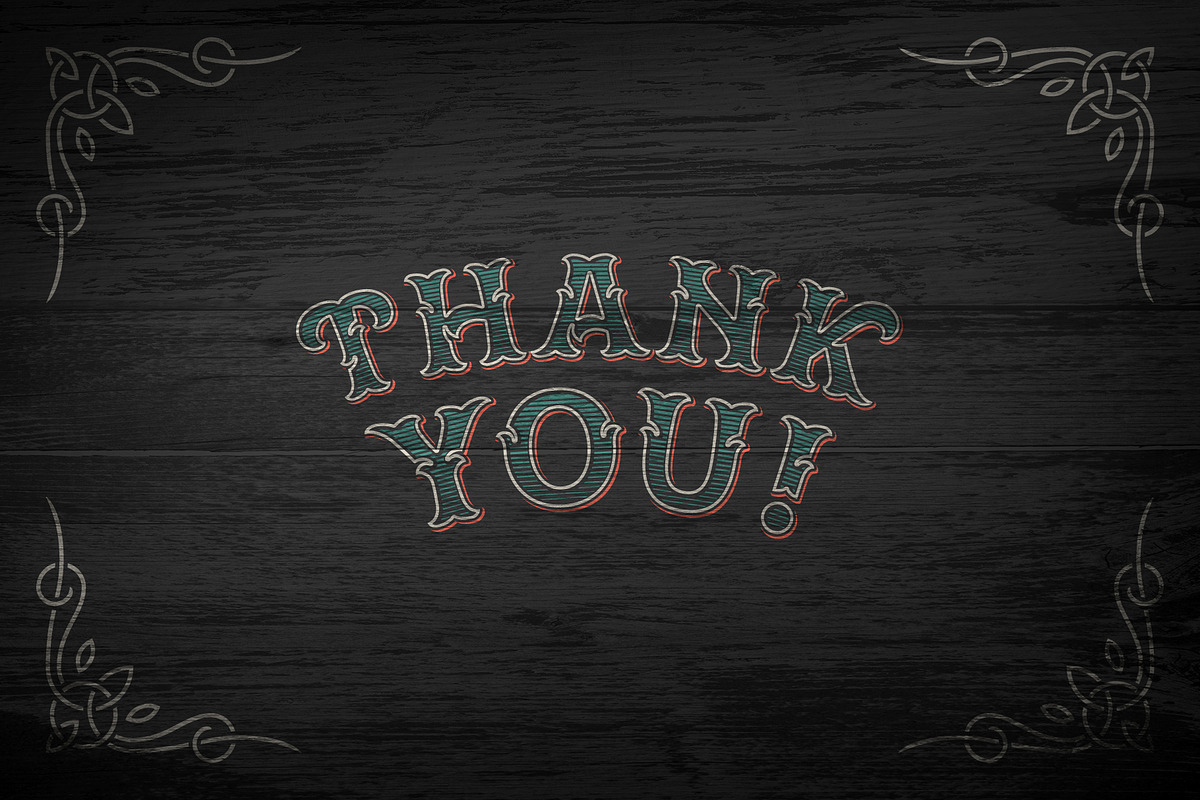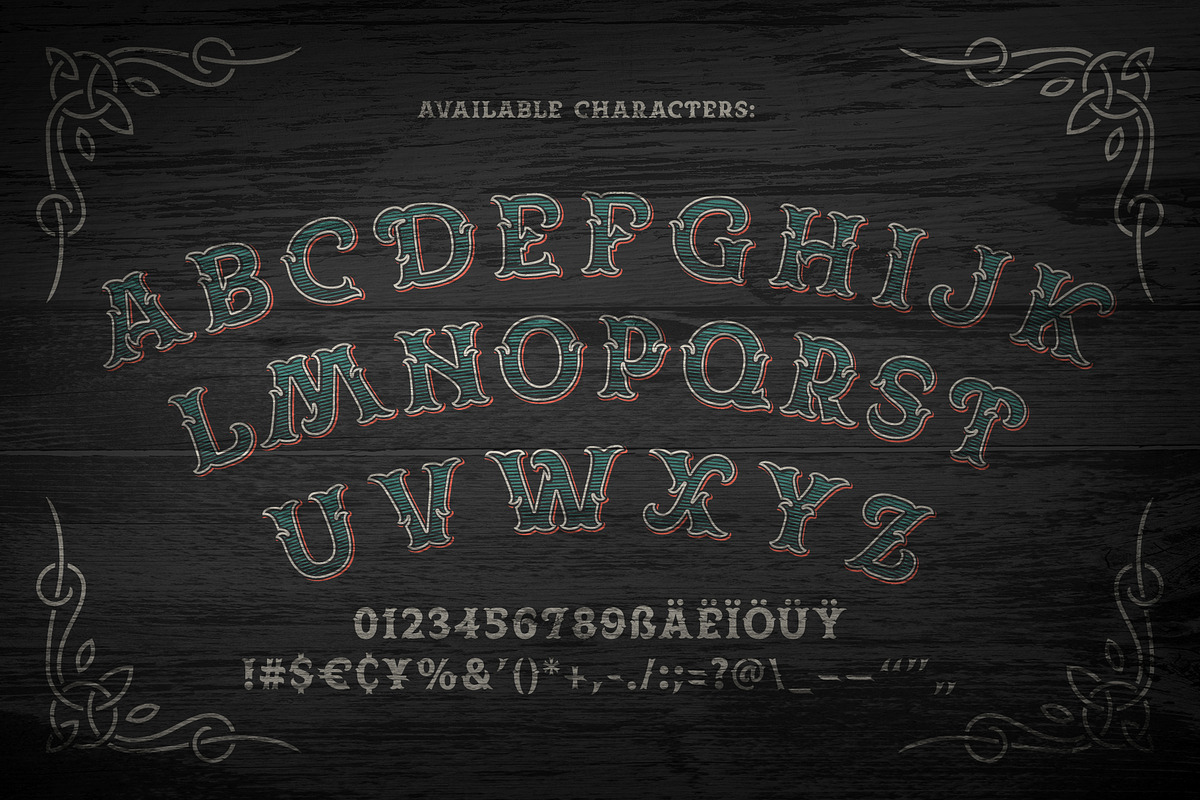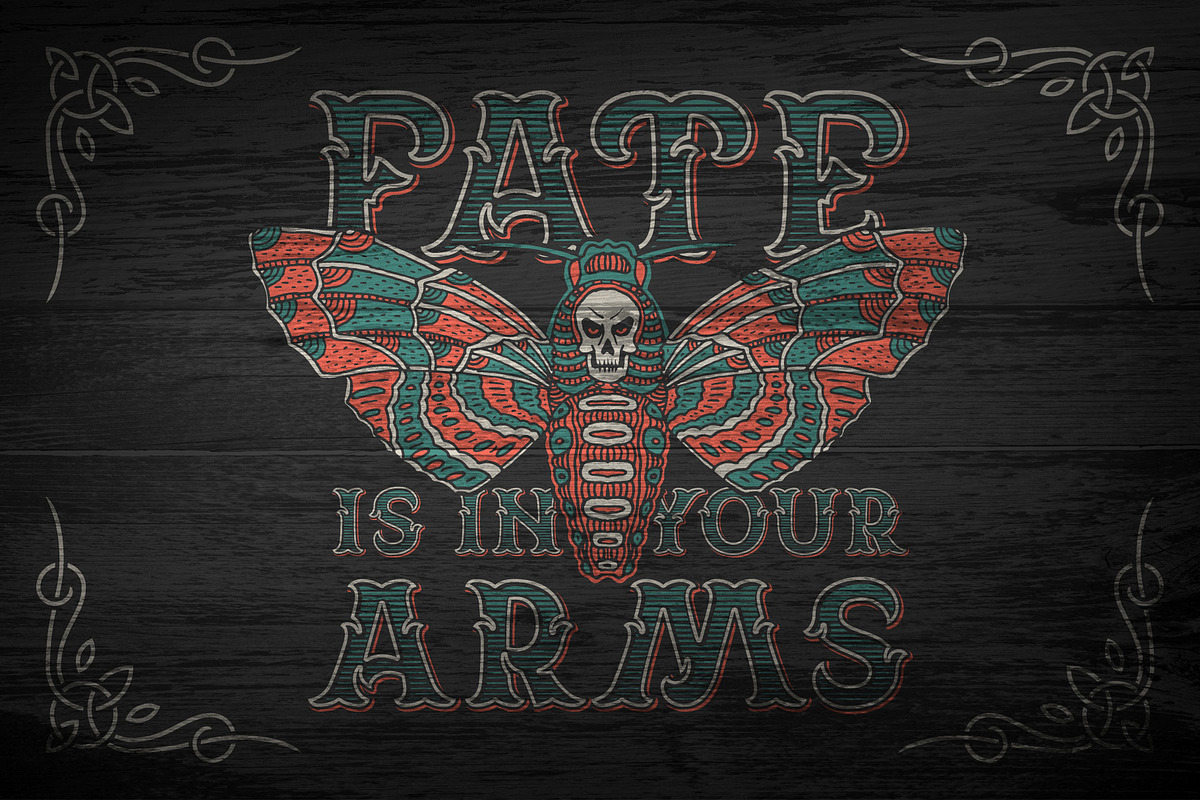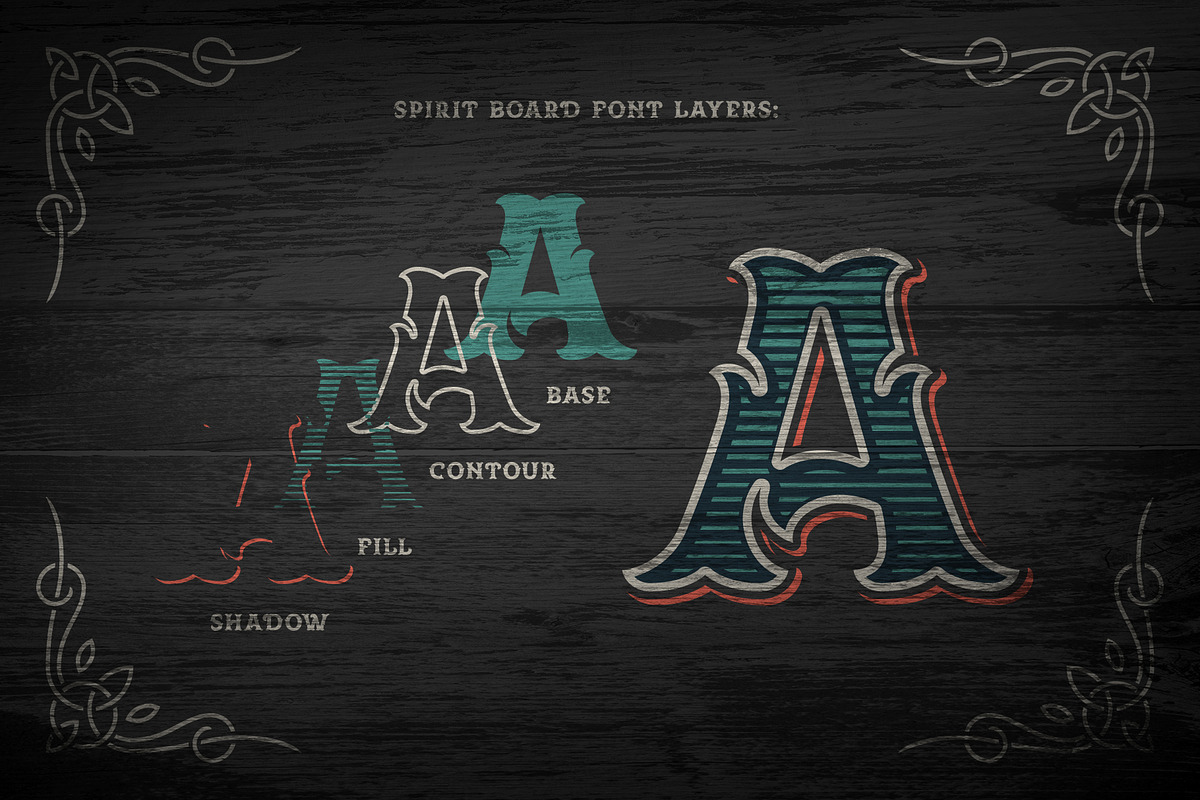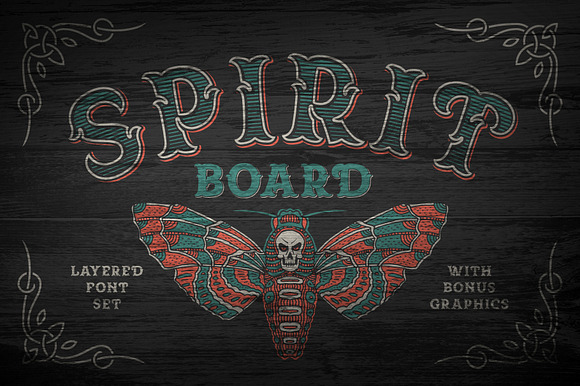
Spirit Board font set
Hi, presenting a vintage "Spirit board" font set. It has decorative old-school look with four font layers (one font file for each layer). Also all graphics from 4th screenshot is included as a bonus, with vector illustration, decorative ornate and editable text.
Why Spirit Board font set is worth a look
Spirit Board font set by Gleb Guralnyk fits naturally into Branding, posters, packaging, typography.